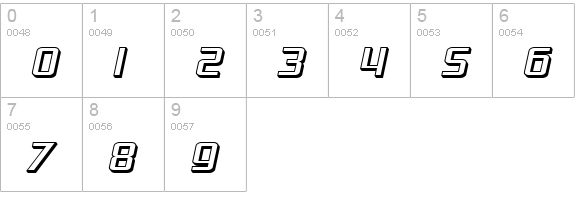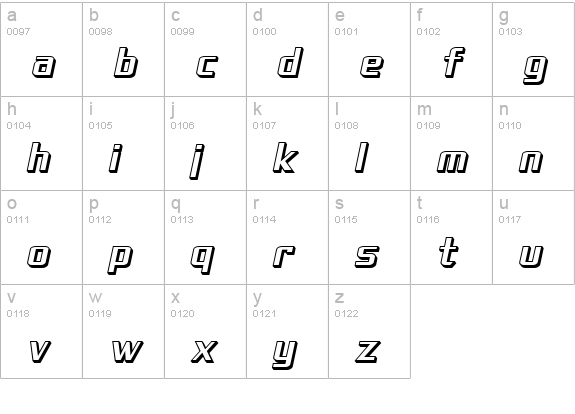
SF Theramin Gothic Shaded Oblique Font Details
SF Theramin Gothic Shaded Oblique is a distinctive, italic variant in the SF typeface family \xE2\x80\x94 well suited to design and typography projects.
SF Theramin Gothic Shaded Oblique font is the epitome of elegance and sophistication. With its unique blend of Gothic and modern elements, this font exudes a sense of mystery and allure. The carefully crafted letterforms are beautifully shaded, adding depth and dimension to every character. This font is perfect for any project that requires a touch of dramatic flair. Whether you are designing a logo, creating a poster, or crafting a headline, SF Theramin Gothic Shaded Oblique font will instantly elevate your work to new heights. Its sleek and stylish appearance will captivate viewers and leave a lasting impression. The best part? SF Theramin Gothic Shaded Oblique font is available for free! You can easily download this font from FontsMarket.com, a trusted source for high-quality fonts. With just a few clicks, you can have this stunning font at your fingertips, ready to enhance your designs. Don't miss out on the opportunity to add SF Theramin Gothic Shaded Oblique font to your font collection. Its versatility and timeless appeal make it a must-have for designers, artists, and creatives alike. So go ahead, unleash your creativity and let this font transform your projects into works of art. Download SF Theramin Gothic Shaded Oblique font today and experience the seamless blend of Gothic aesthetics and modern design.